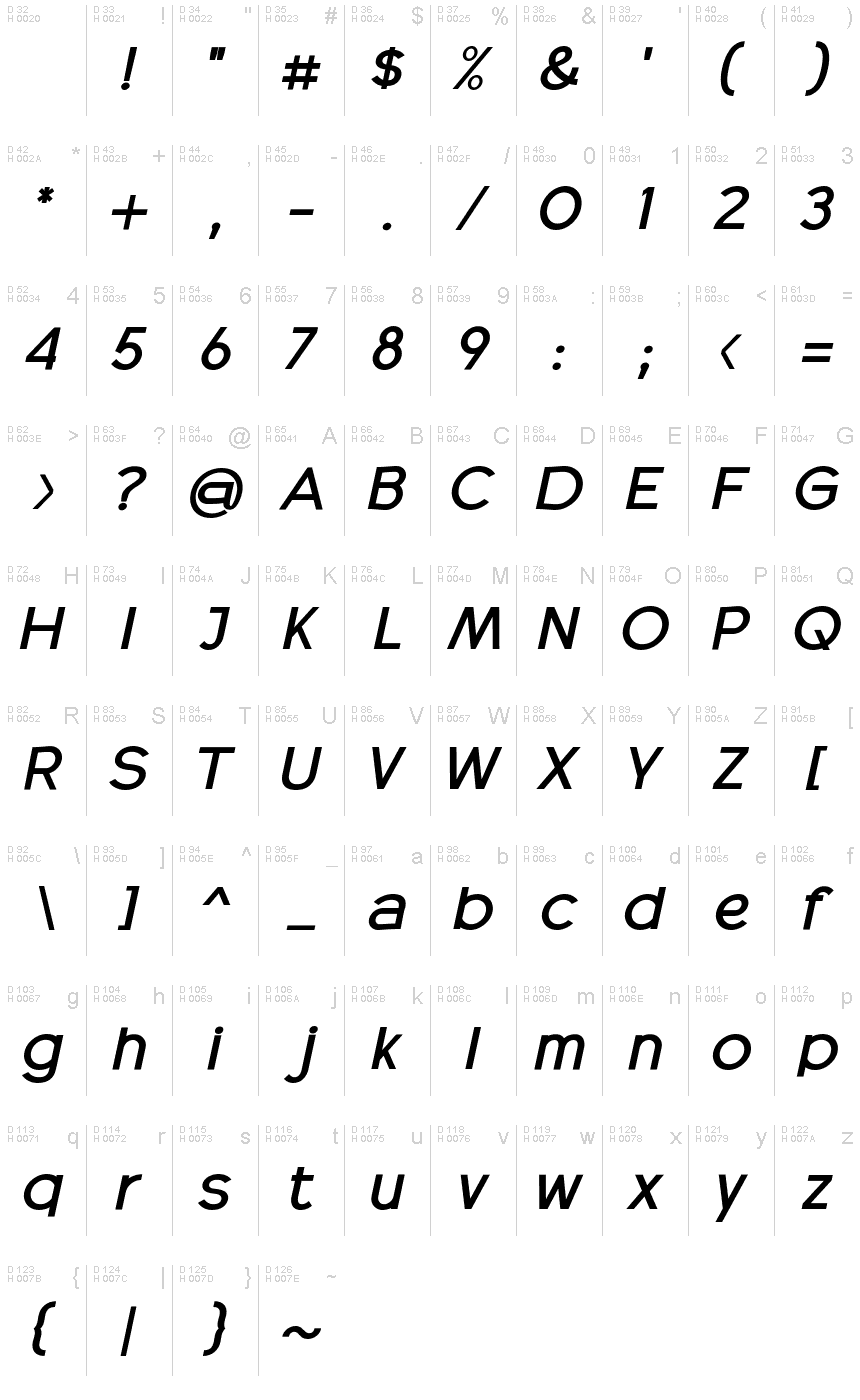
RADEON Black Italic
RADEON Black Italic, designed by ToniStudio, is a stunning addition to the RADEON font family. With its modern sans serif style and semi-light weight, this font exudes sophistication and elegance. Its sleek curves and slanted italics make it perfect for creating impactful headlines and eye-catching logos. Whether you're working on fashion editorials, luxury brand promotions, or contemporary art projects, this versatile font is bound to elevate your designs with its bold yet refined aesthetic. Embrace the power of RADEON Black Italic and captivate your audience with its timeless appeal.